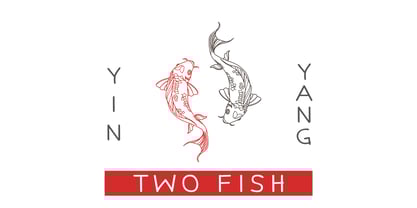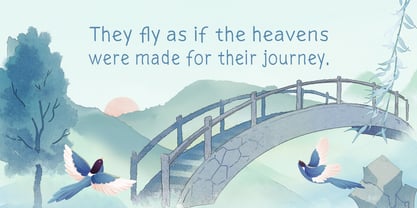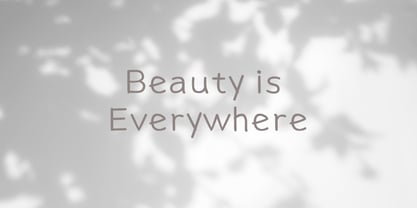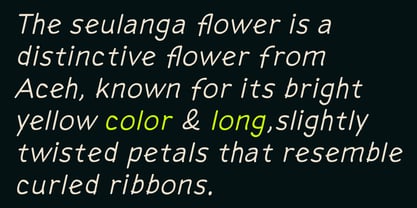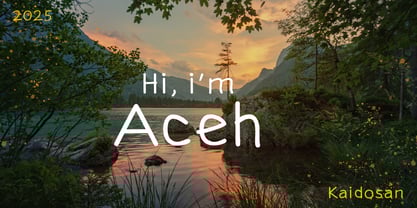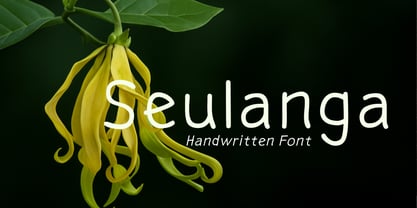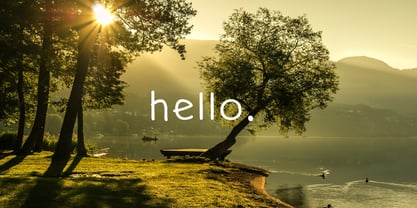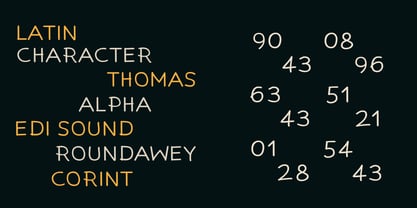
Seulanga
by Kaidosan
The Seulanga Font Family was designed by Muhammad Ansari and published by Kaidosan. Seulanga contains 2 styles.
Seulanga is a beautifully crafted handwritten font that exudes warmth, softness, and a genuine human touch. Designed with smooth curves and organic strokes, this font comes in two versatile styles: Regular and Italic — perfect for adding personality and elegance to your creative projects.
The Regular style offers a clean, approachable handwritten look that maintains excellent readability, making it ideal for children's branding, invitations, journals, or social media content.
Meanwhile, the Italic style adds a more expressive and dynamic flow — perfect for highlighting quotes, taglines, or headers that need emotional or artistic emphasis.